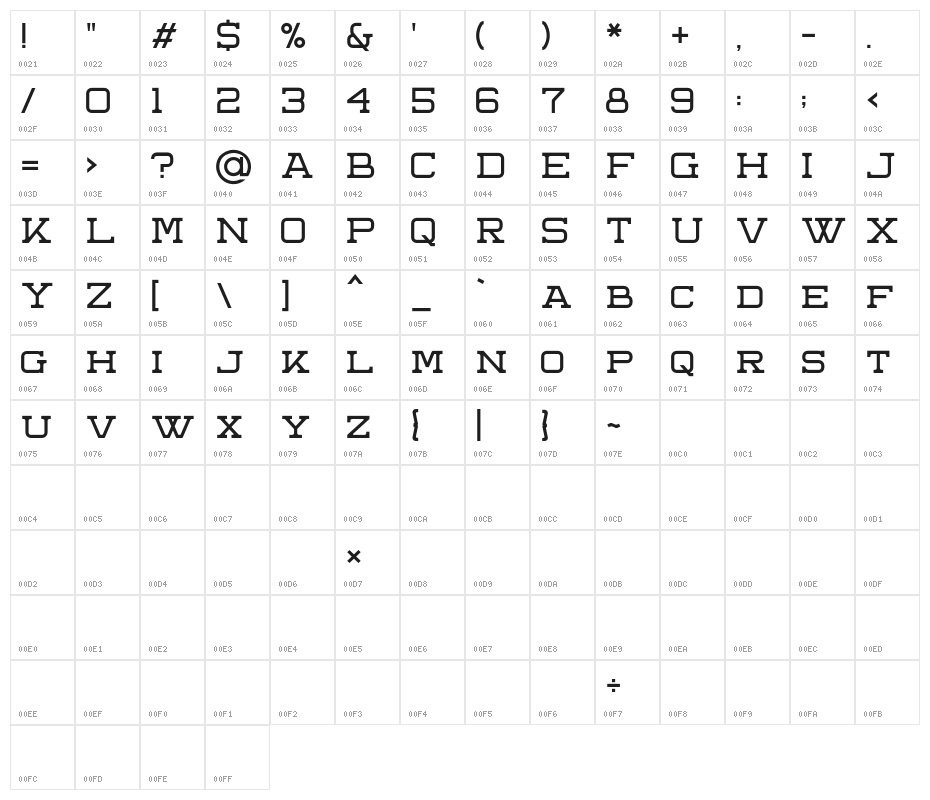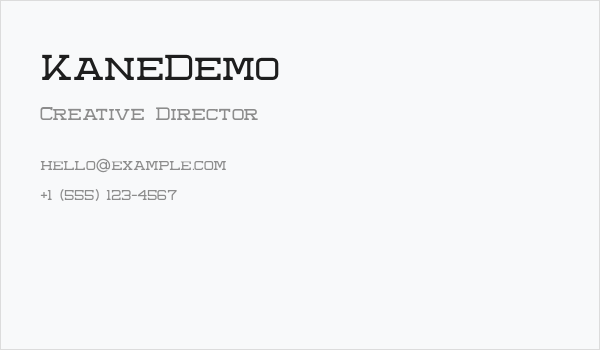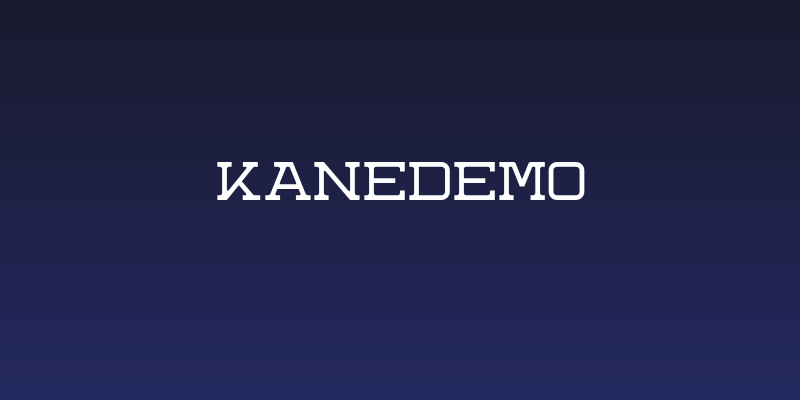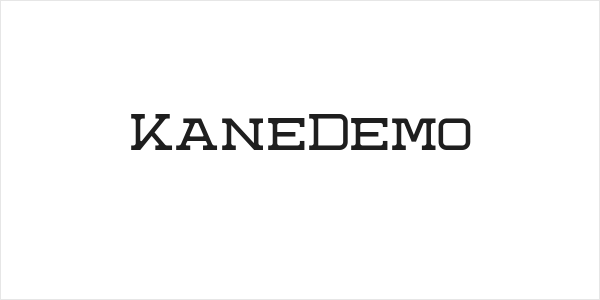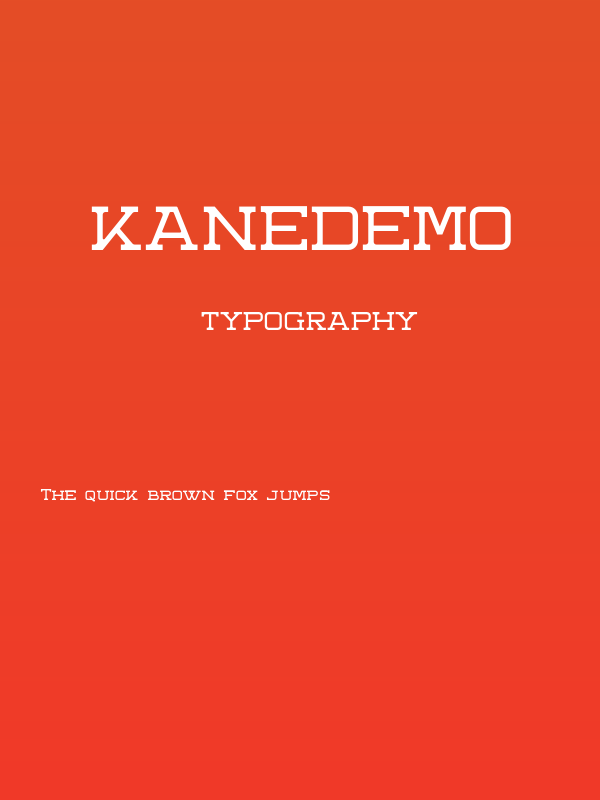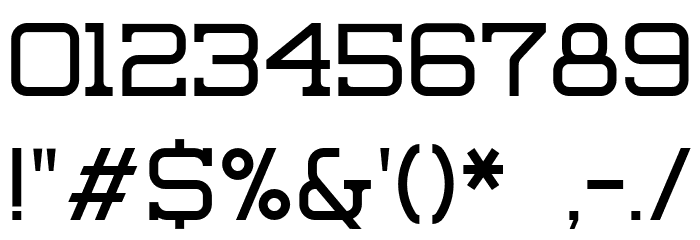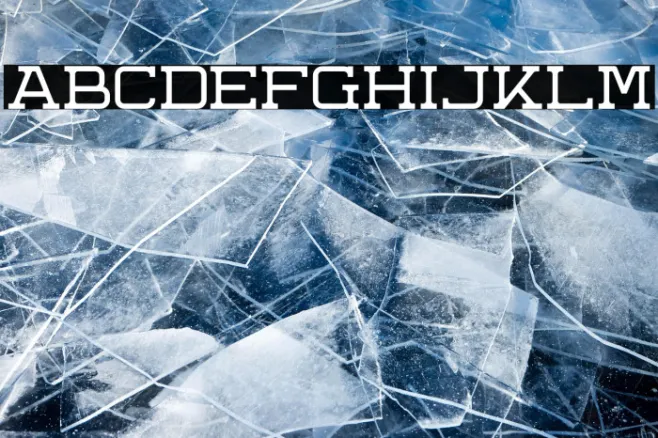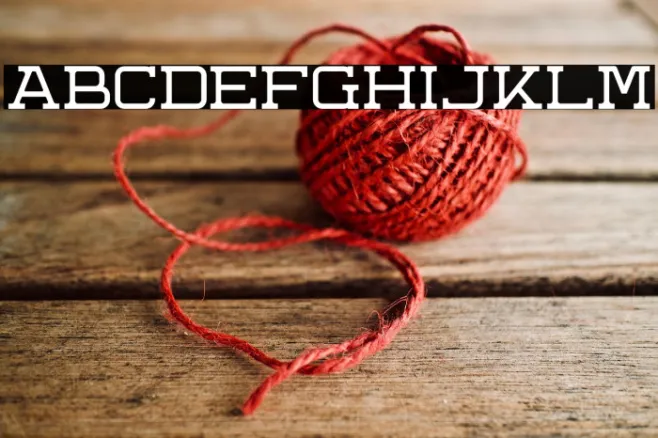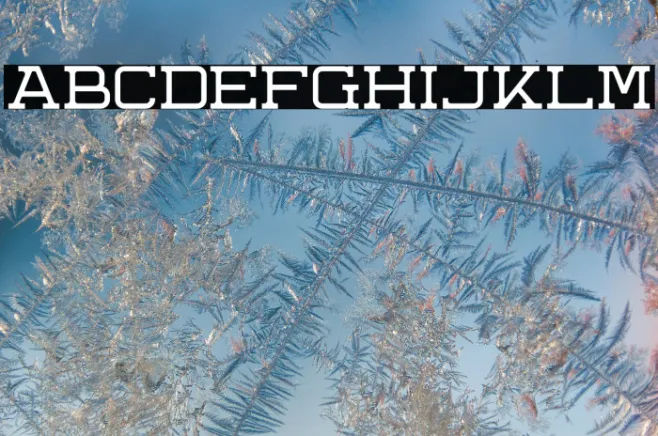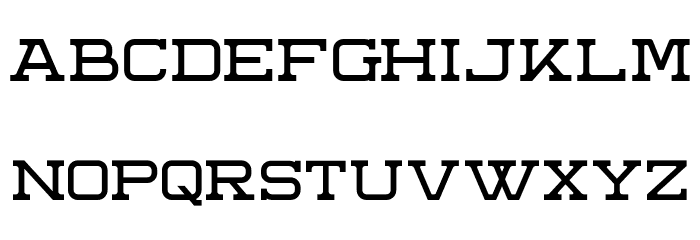
KaneDemo Font
KaneDemo Description
This font features a bold and structured design with a modern and industrial feel. The characters are uppercase and numerals, showcasing a geometric and slightly condensed form. The strokes are consistent in weight, providing a uniform appearance across all characters. The font includes a full set of uppercase letters, numbers, and a variety of punctuation marks and symbols. Its clean lines and mechanical aesthetic make it suitable for projects that require a strong and impactful visual presence.
| Proposed Projects | Ideal for branding, posters, headlines, and signage where a strong, modern look is desired. |